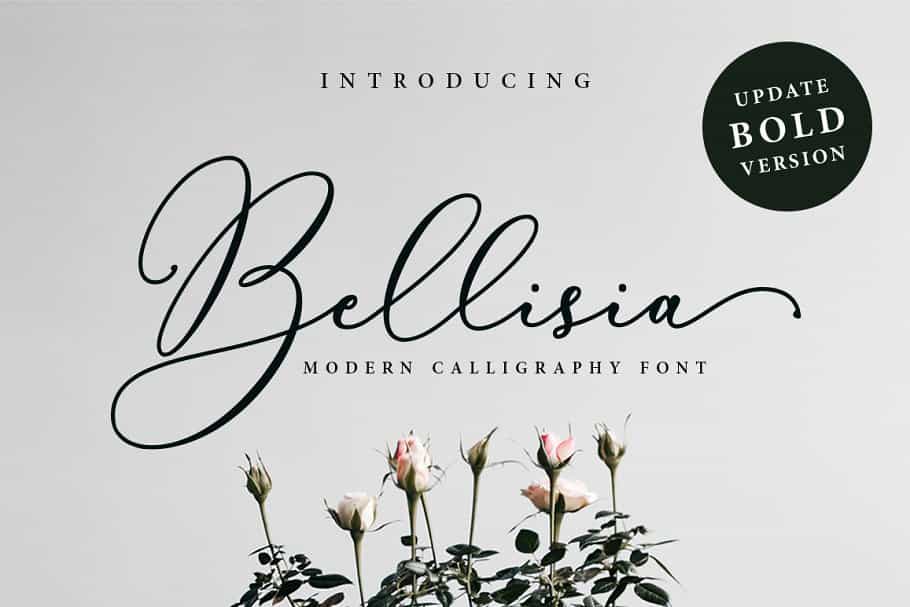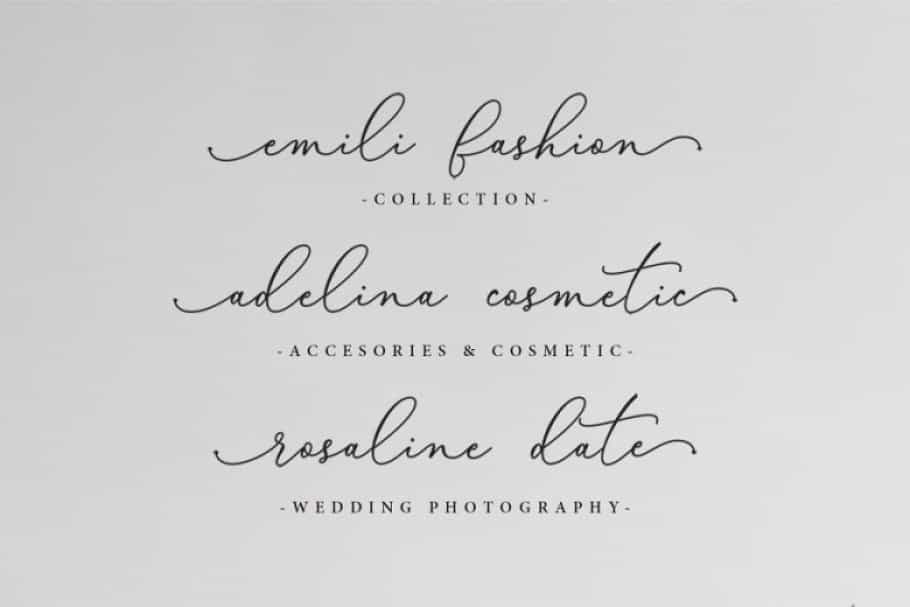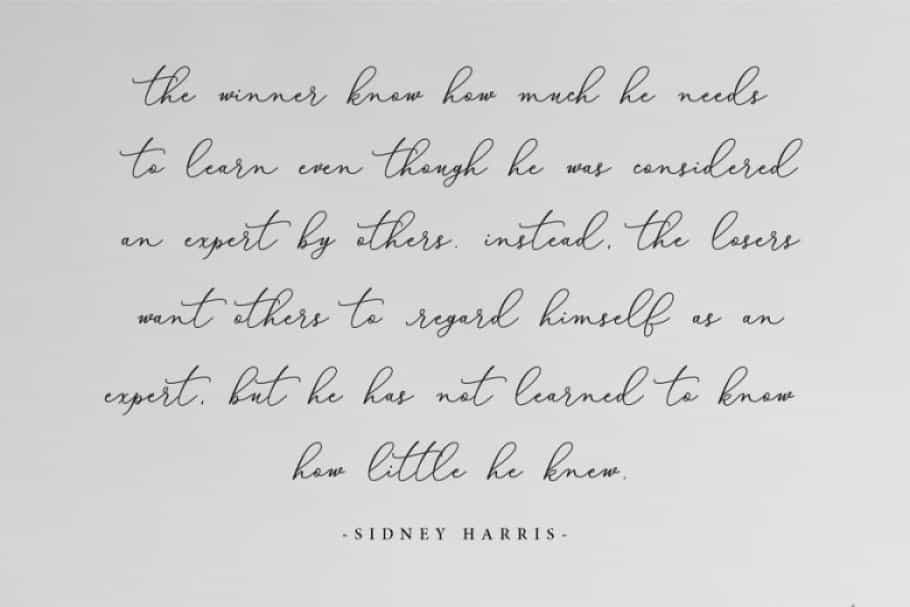
Bellisia Script is a stylish contemporary calligraphy font. Just the thing for logotypes and website headers also as wedding cards and fashion designs – Bellisia also has its Italic companion for the extra variety and both fonts have uppercase letters and punctuation numerals for the multilingual support.